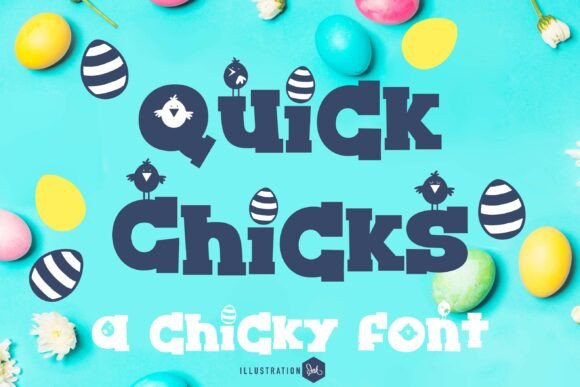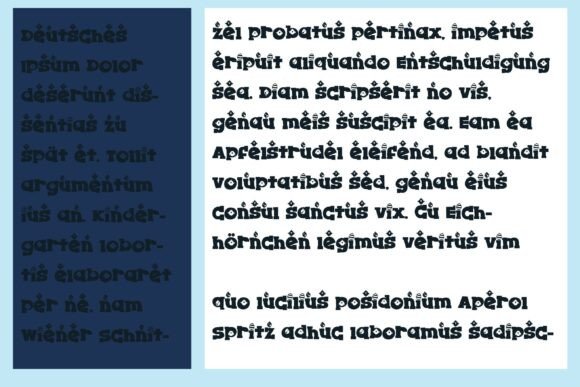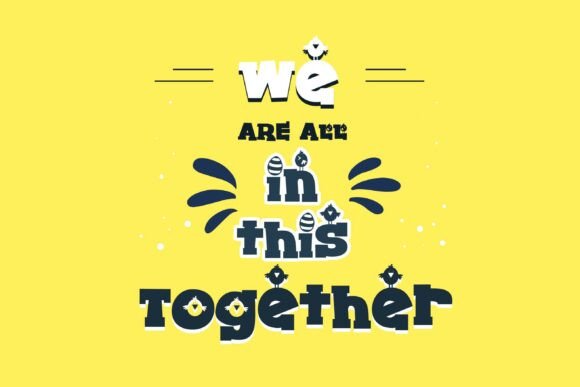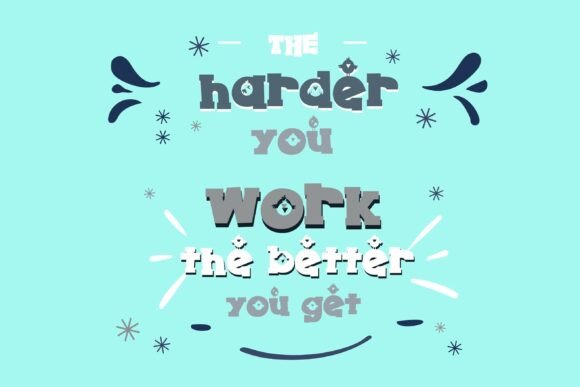
Quick Chicks Font
About the Quick Chicks Font
Welcome to the world of Quick Chicks Font, a typeface that will inspire your next great project. This hand-crafted font is a whimsical serif with adorable chicks throughout.
Quick Chicks is best suited for headlines, short text blocks on invitations or greeting cards, and playful branding elements where its whimsical nature can shine. It’s ideal for children’s products, springtime promotions, or projects requiring a lighthearted and approachable feel. Avoid using it for body copy or lengthy text; its charming irregularities make it unsuitable for readability in extended passages or user interfaces.
Pairing Quick Chicks with a clean sans-serif like Open Sans for body text creates a strong contrast, allowing the display font to stand out. Alternatively, a classic serif such as Garamond would provide a sophisticated counterpoint, balancing the hand-crafted feel with a touch of formality. For a more playful approach, consider a rounded geometric sans-serif.
The font exudes a friendly and cheerful personality, perfect for projects targeting a young or family-oriented audience. Its hand-drawn charm creates a sense of warmth and approachability, making it well-suited for branding associated with happiness, childhood, or springtime.
Quick Chicks Font Usage Examples
Quick Chicks Font Example